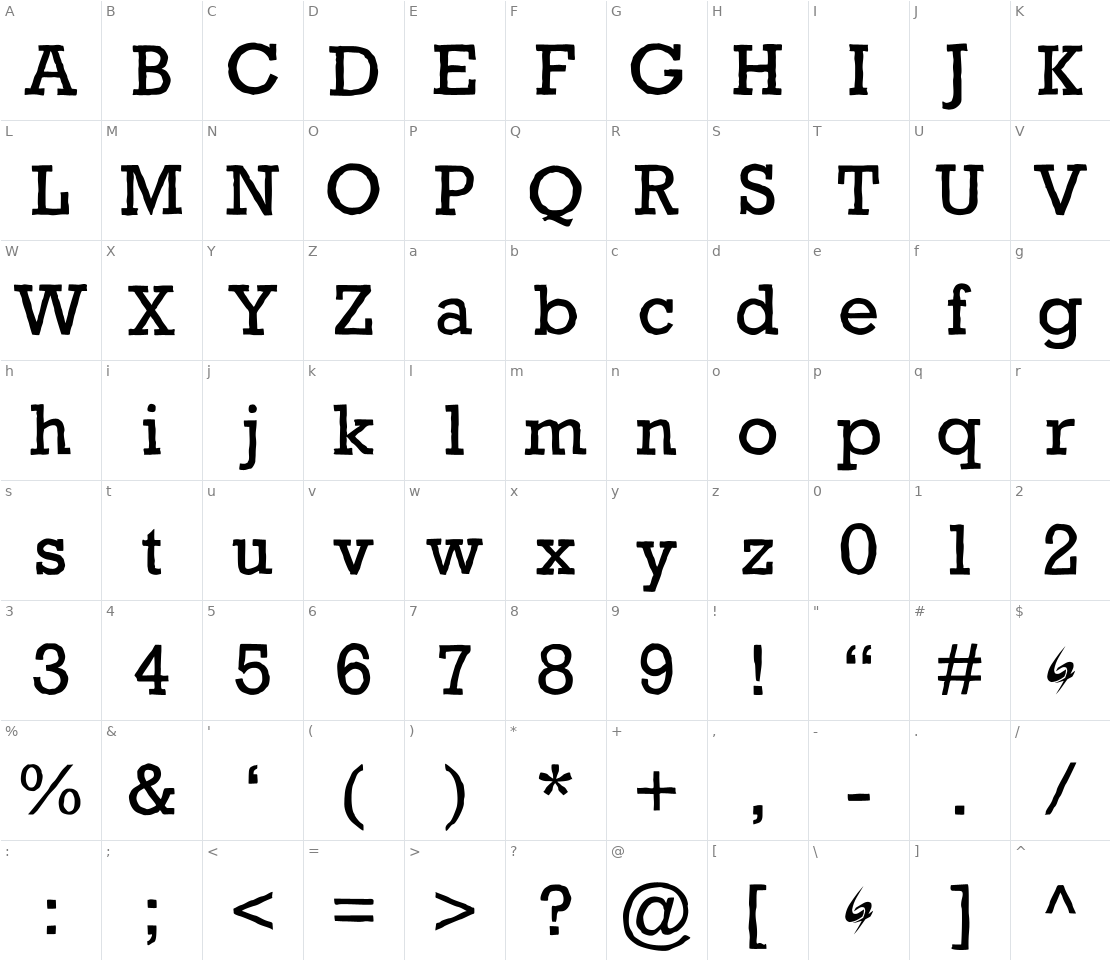
Gycentium Popwell
Gycentium Popwell is a bold slab serif from Ariq Sya with a sturdy, typewriter-inflected character that recalls mid-century print and institutional signage. The letterforms are heavy but readable, with thick, squared-off serifs that anchor each character firmly on the baseline. It works well for headlines and vintage-leaning branding, and holds up surprisingly well in shorter passages of body text where you want something with more visual weight than a typical serif.